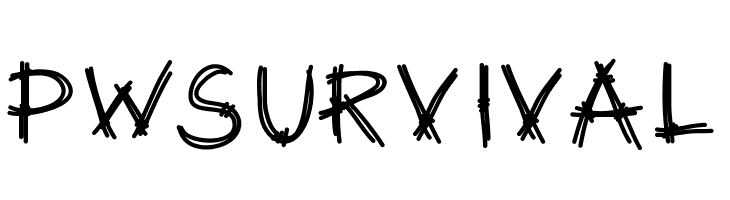
A whimsical, hand-drawn font with looping, interconnected strokes.
A whimsical, artistic font with looping, swirling strokes and a playful, hand-drawn appearance.
A sketch-like, hand-drawn font with dynamic and energetic characters.
A playful, handwritten font with tall, narrow letters and a casual style.
A dynamic handwritten font with fluid, elongated strokes and a lively slant.
A dynamic, handwritten font with elongated, expressive strokes.
A playful, hand-drawn font with unique striped patterns in some characters.
A bold, expressive handwritten font with fluid strokes and dynamic character forms.